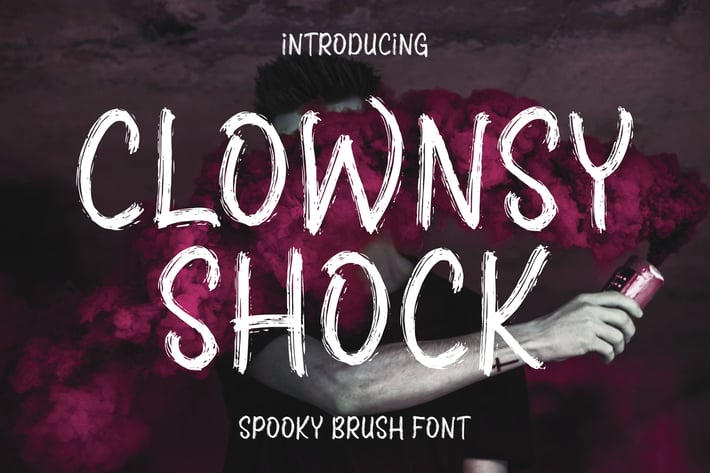
Clownsy Shock Spooky Brush Font
Clownsy Shock is a spooky and energetic brush font with raw, expressive strokes that bring out a creepy yet artistic vibe. Its rough textures and bold hand-painted style make it perfect for projects that want to capture tension, thrill, and drama — especially during Halloween season or for dark, mysterious branding concepts.
Unique spooky brush lettering style
Natural dry-brush texture for an authentic hand-drawn look
Great legibility for titles and bold statements
Horror or Halloween-themed designs
Movie posters and book covers
Music album artwork and gig posters
Urban streetwear branding
* Dark-themed social media graphics
Unleash the chaos — Clownsy Shock brings a haunting brush energy that electrifies your design.